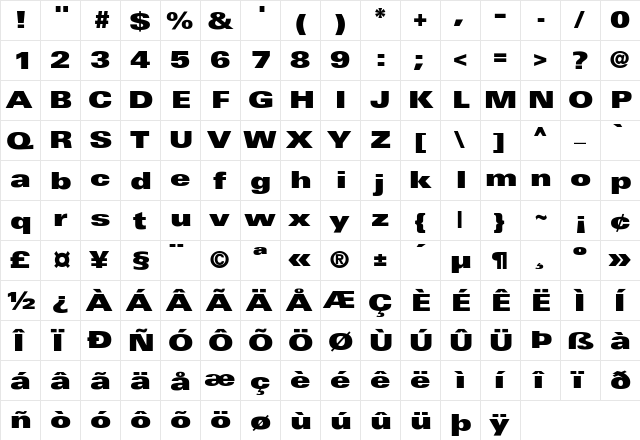
Fox-Extra Heavy-Ext Regular Font Preview
Fox-Extra Heavy-Ext Regular
Fox-Extra Heavy-Ext Regular Font Details
Design Context for Fox-Extra Heavy-Ext Typeface
Fox-Extra Heavy-Ext takes a measured approach to typography — its balanced proportions and neutral character make it a reliable workhorse for both digital and print work.